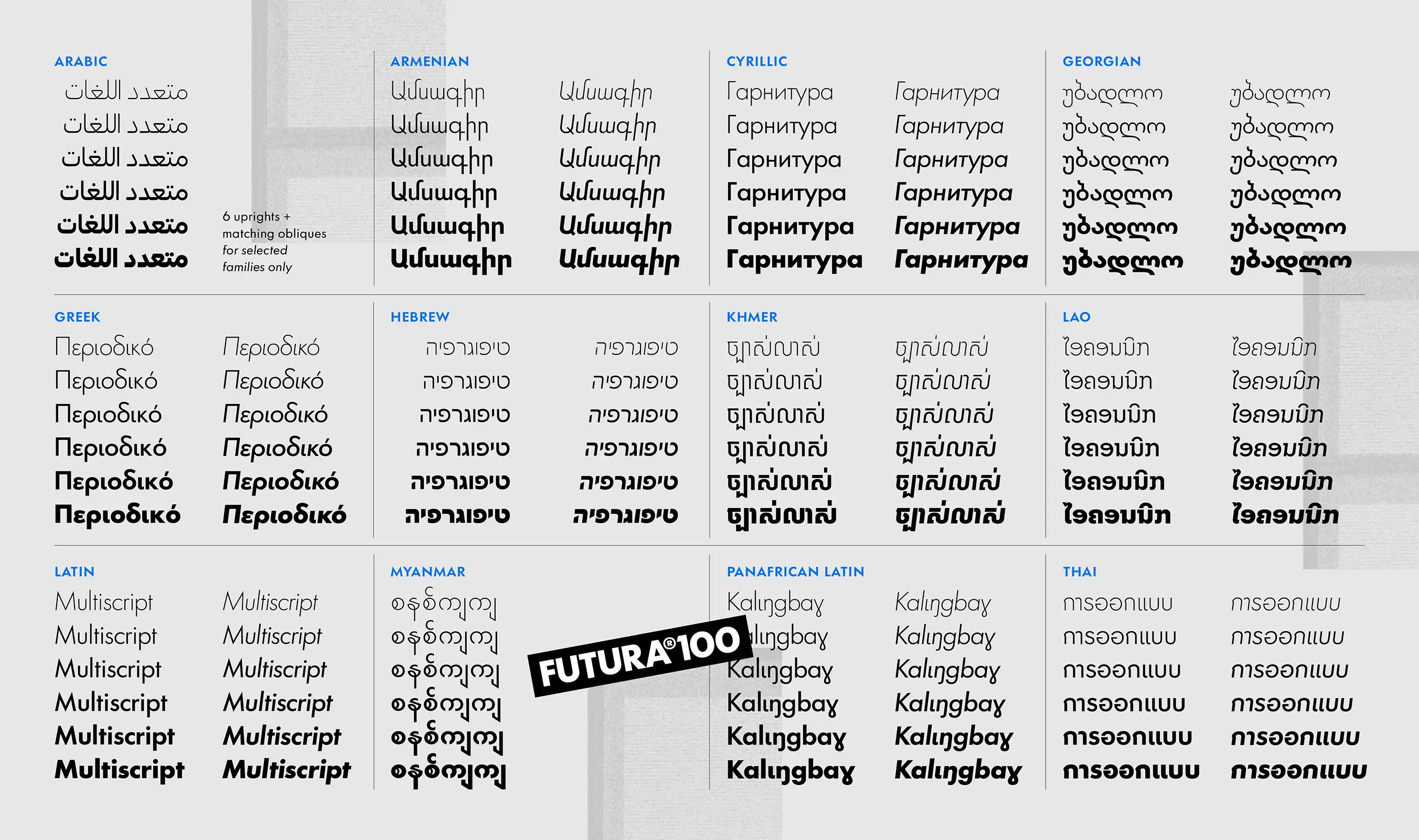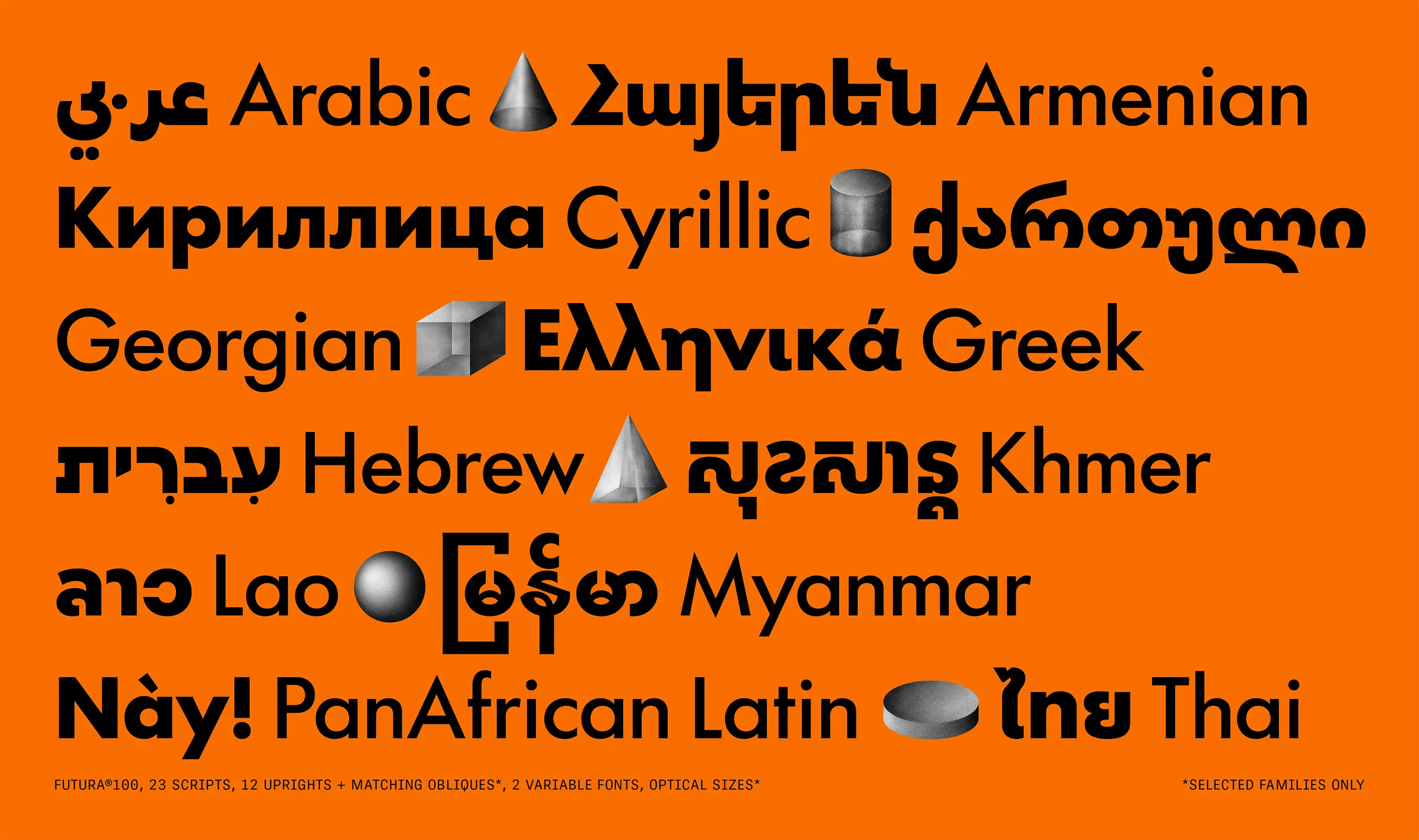
FUTURA®100 MULTISCRIPT
Futura®100 — the iconic geometric family for branding, surety, and standout presence — is now one of the few truly global type families. It communicates in 12 scripts and more languages than ever before, including: Arabic, Armenian Cyrillic, Georgian, Greek, Hebrew, Khmer, Lao, Latin, Myanmar, PanAfrican Latin, and Thai. With upcoming language support for more than 90% of the world’s population, the revitalised warmth of Futura®100 is historically introspective, globally applicable, and stylistically comprehensive.
Futura®100
The classic geometric family — redesigned for modern tools, faithfulness to the original, and global multiscript use.
Styles
6 weigths with matching obliques and 6 text styles with matching obliques
Script and Language
200+ languages that use the Latin script
Recommended Usage
Branding, posters, magazines, advertising and the text versions for books
Features
All caps, basic ligatures, case-sensitive forms, contextual alternates, arbitrary fractions, 5 sets of figures (oldstyle numerals, lining figures, proportional figures, tabular figures and small caps), small capitals, …
Futura®100 Arabic
A minimalist and versatile Naskh for today’s digital tools and multiscript use.
Styles
6 weights and 6 text style versions
Script and Language
Arabic and 200+ languages that use the Latin script
Features
All caps, basic ligatures, case-sensitive forms, contextual alternates, arbitrary fractions, 5 sets of figures (oldstyle numerals, lining figures, proportional figures, tabular figures and small caps), small capitals, …
Futura®100 Armenian
Armenian script interpretation of the iconic and warm geometric font family.
Styles
6 weigths with matching obliques and 6 text styles with matching obliques
Script and Language
Armenian and 200+ languages that use the Latin script
Recommended Usage
Branding, posters, magazines, advertising and the text versions for books
Features
All caps, basic ligatures, case-sensitive forms, contextual alternates, arbitrary fractions, 5 sets of figures (oldstyle numerals, lining figures, proportional figures, tabular figures and small caps), small capitals, …
Futura®100 Cyrillic
Geometric warmth made for today’s tools and multiscript use.
Styles
6 weigths with matching obliques and 6 text styles with matching obliques
Script and Language
Most of the languages that use the Cyrillic script
Recommended Usage
Branding, posters, magazines, advertising and the text versions for books
Features
All caps, basic ligatures, case-sensitive forms, contextual alternates, arbitrary fractions, 5 sets of figures (oldstyle numerals, lining figures, proportional figures, tabular figures and small caps), small capitals, …
Futura®100 Georgian
A geometric typeface with low contrast that retains warmth and readability.
Styles
6 weigths with matching obliques and 6 text styles with matching obliques
Script and Language
Georgian and 200+ languages that use the Latin script
Recommended Usage
Branding, posters, magazines, advertising and the text versions for books
Features
All caps, basic ligatures, case-sensitive forms, contextual alternates, arbitrary fractions, 5 sets of figures (oldstyle numerals, lining figures, proportional figures, tabular figures and small caps), small capitals, …
Futura®100 Greek
A low contrast, geometric typeface for contemporary communication in the digital and print world.
Styles
6 weigths with matching obliques and 6 text styles with matching obliques
Script and Language
Greek and 200+ languages that use the Latin script
Recommended Usage
Branding, posters, magazines, advertising and the text versions for books
Features
All caps, basic ligatures, case-sensitive forms, contextual alternates, arbitrary fractions, 5 sets of figures (oldstyle numerals, lining figures, proportional figures, tabular figures and small caps), small capitals, …
Futura®100 Hebrew
Hebrew script interpretation of the iconic and warm geometric font family.
Styles
6 weigths with matching obliques and 6 text styles with matching obliques
Futura®, a typography icon, reimagined for global branding.